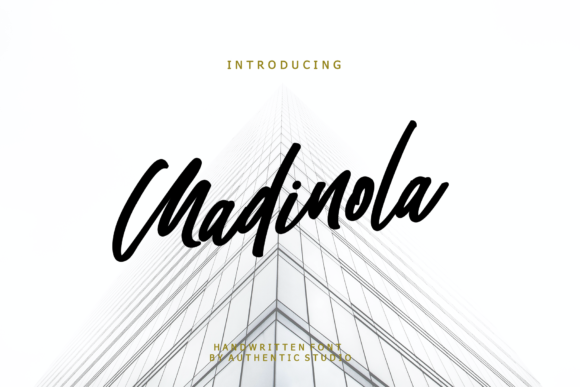
If you're in the market for a modern and stylish font that will make your designs stand out from the crowd, then you need to check out Madinola Font. This beautiful script font was inspired by urban fashion, and it's perfect for creating logos, badges, apparel, product packaging, headlines, T-shirts, posters, and anything else that needs a personal touch.
Madinola Font is the perfect way to add a touch of class and sophistication to your designs. Its elegant curves and stylish details will make your designs look polished and professional. Plus, it's incredibly versatile, so you can use it for a wide variety of projects.